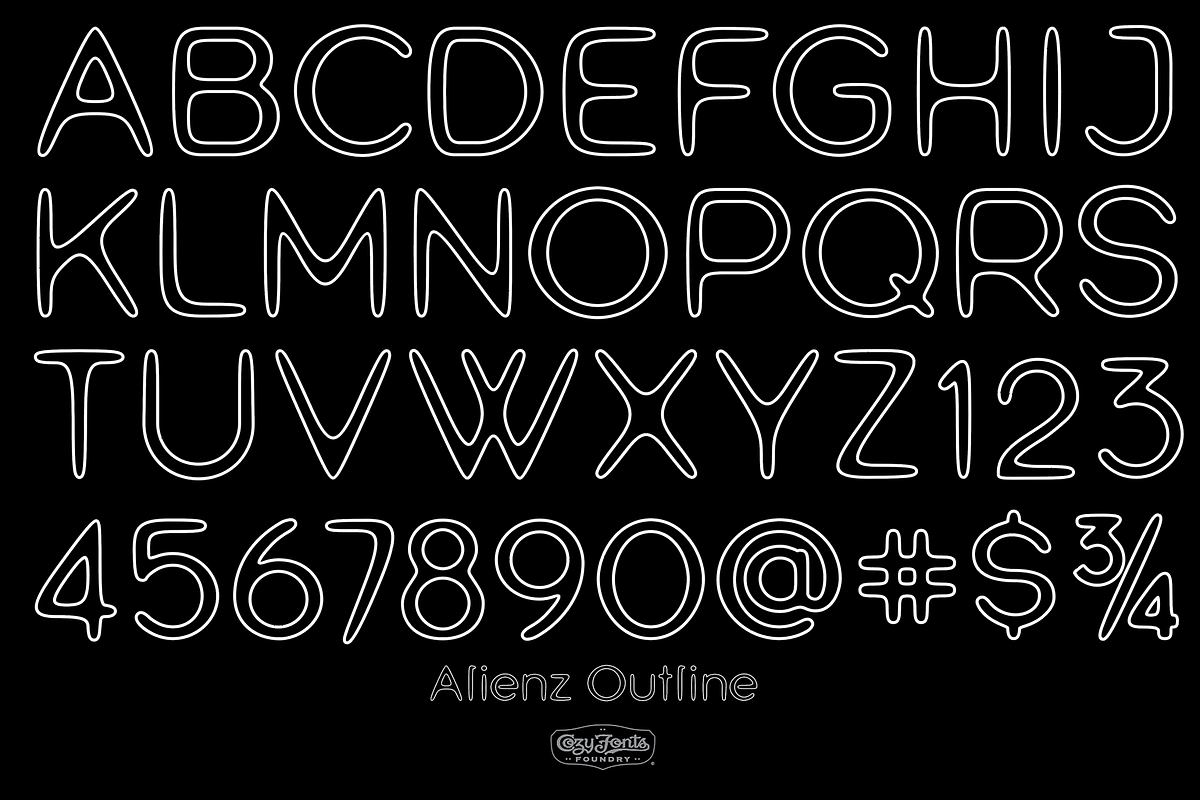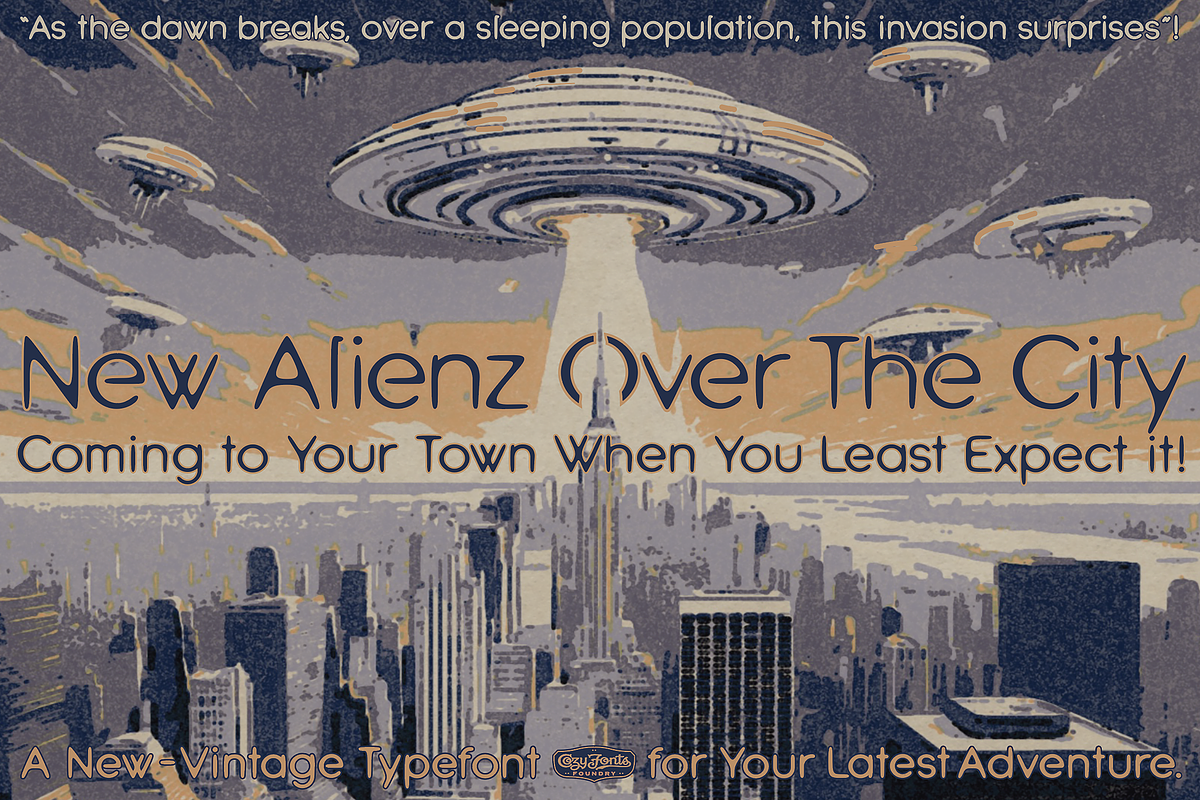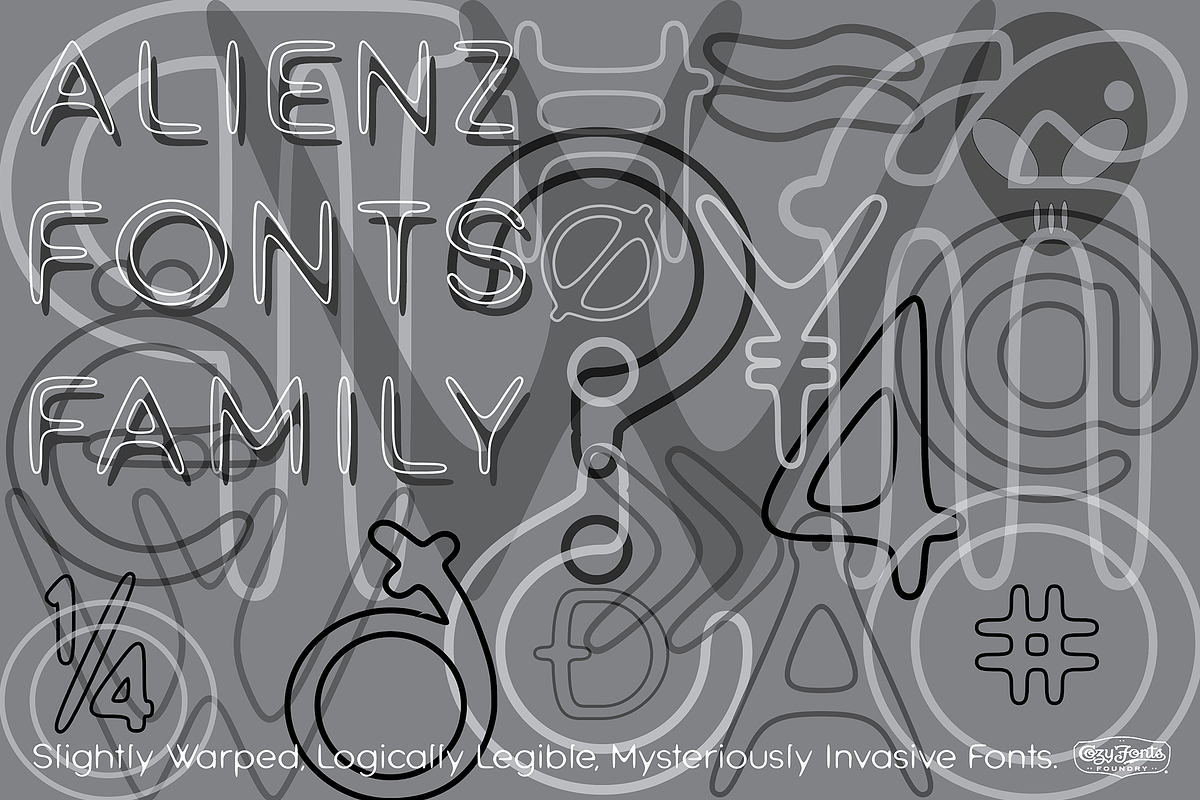
Alienz Outline
Alienz Fonts Alienz Regular & Alienz Outline are playful typefaces that channel the retro-futuristic optimism of the 1960s with a quirky, supernatural twist. Inspired by the sleek, space-age aesthetics of The Jetsons, it features rounded, spade-shaped letterforms with exaggerated curves & accents that feel plucked straight from a cartoon utopia. Yet beneath its whimsical charm lies a subtle, eerie vibe, echoing the mysterious tone of The Twilight Zone. Odd angles, offbeat proportions, and subtle focus give the typeface an uncanny feel, like a transmission from an alternate dimension. Alienz is perfect for projects that want to blend nostalgia, imagination, and a hint of the unknown. Alienz fonts lend the ideal match to anything ‘outer space’ or ‘extra-terrestrial’ in nature.